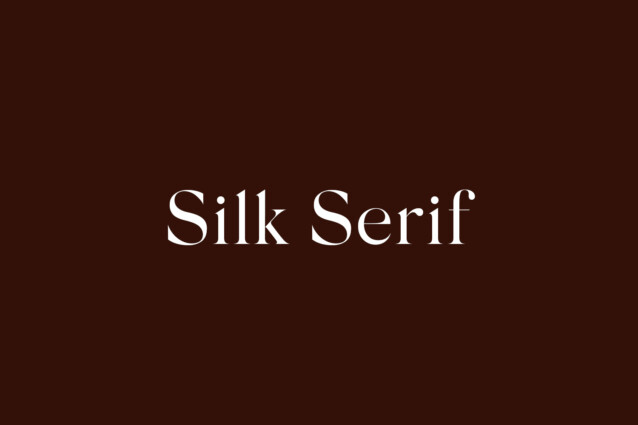
Silk Serif Font Family is a unique variable serif font with a modern twist. With elegant and slender letterforms, this font offers a distinctive and captivating beauty. The main feature of the typeface is the disconnection between the bowls and the stems. However, the bowl is very close to the stem, creating the illusion of connection. Silk is delicate and legible — but above all, it is sophisticated.